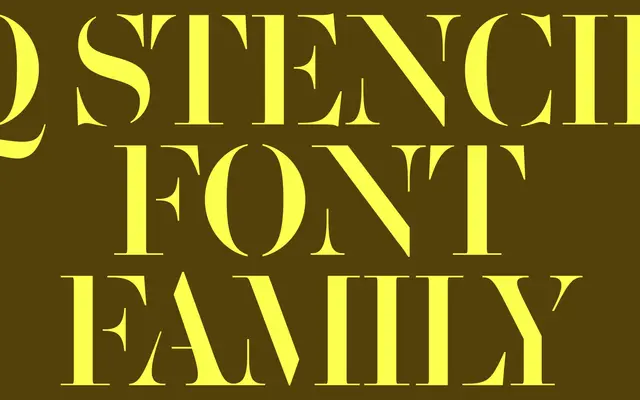
Q Stencil specimen from Playtype
A stencil display typeface from Playtype with a strong graphic character suited to headlines and expressive typesetting.
Q Stencil carries the characteristic breaks and bridges of stencil construction, giving it a bold graphic presence at large sizes. The design sits comfortably in headline, poster and identity contexts where a direct, utilitarian edge is wanted. Playtype's framing around seduction and character suggests a face designed to pull attention even after familiarity has set in.
A stencil typeface, categorised as display due to its decorative cut construction intended for headline and expressive use rather than extended text.